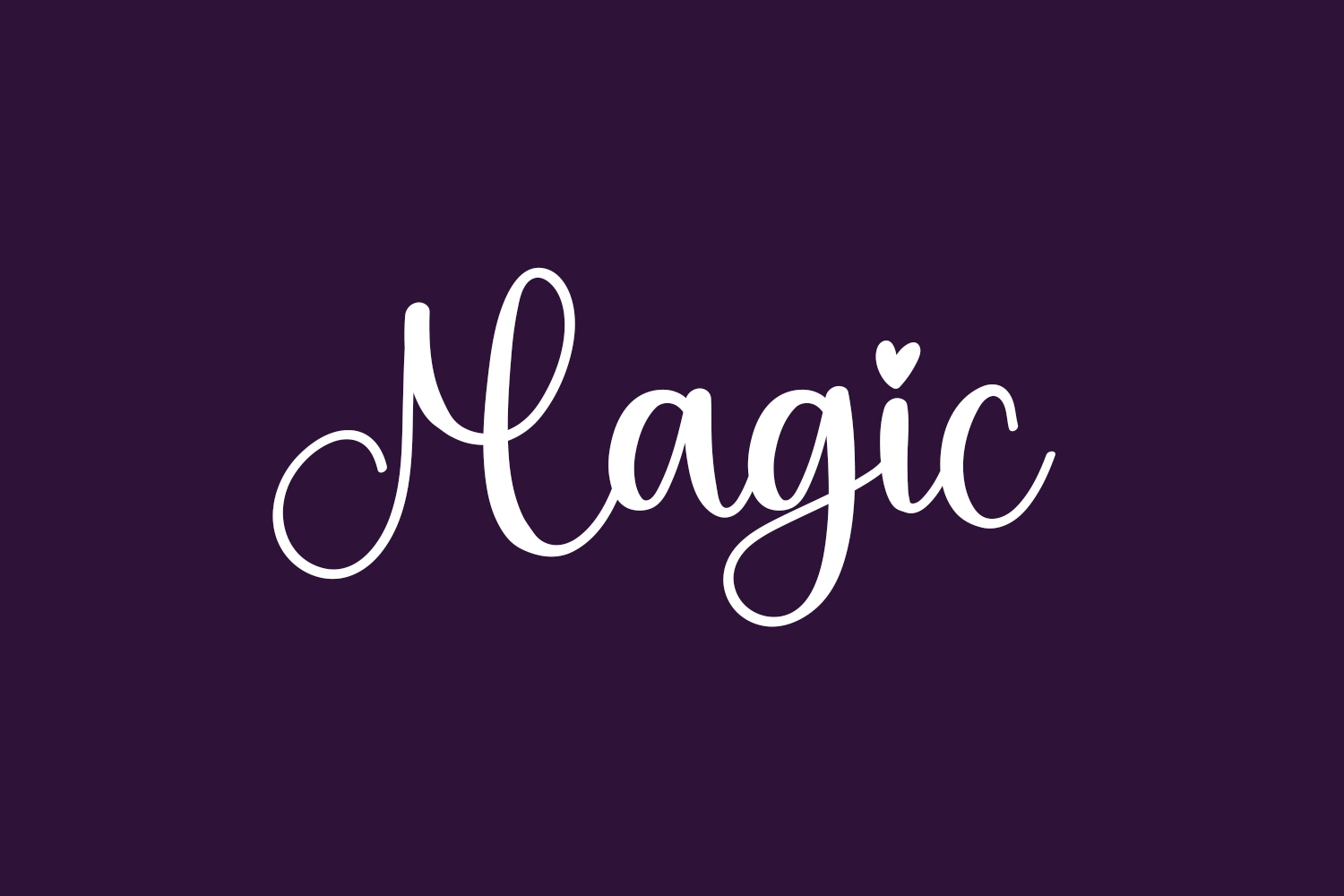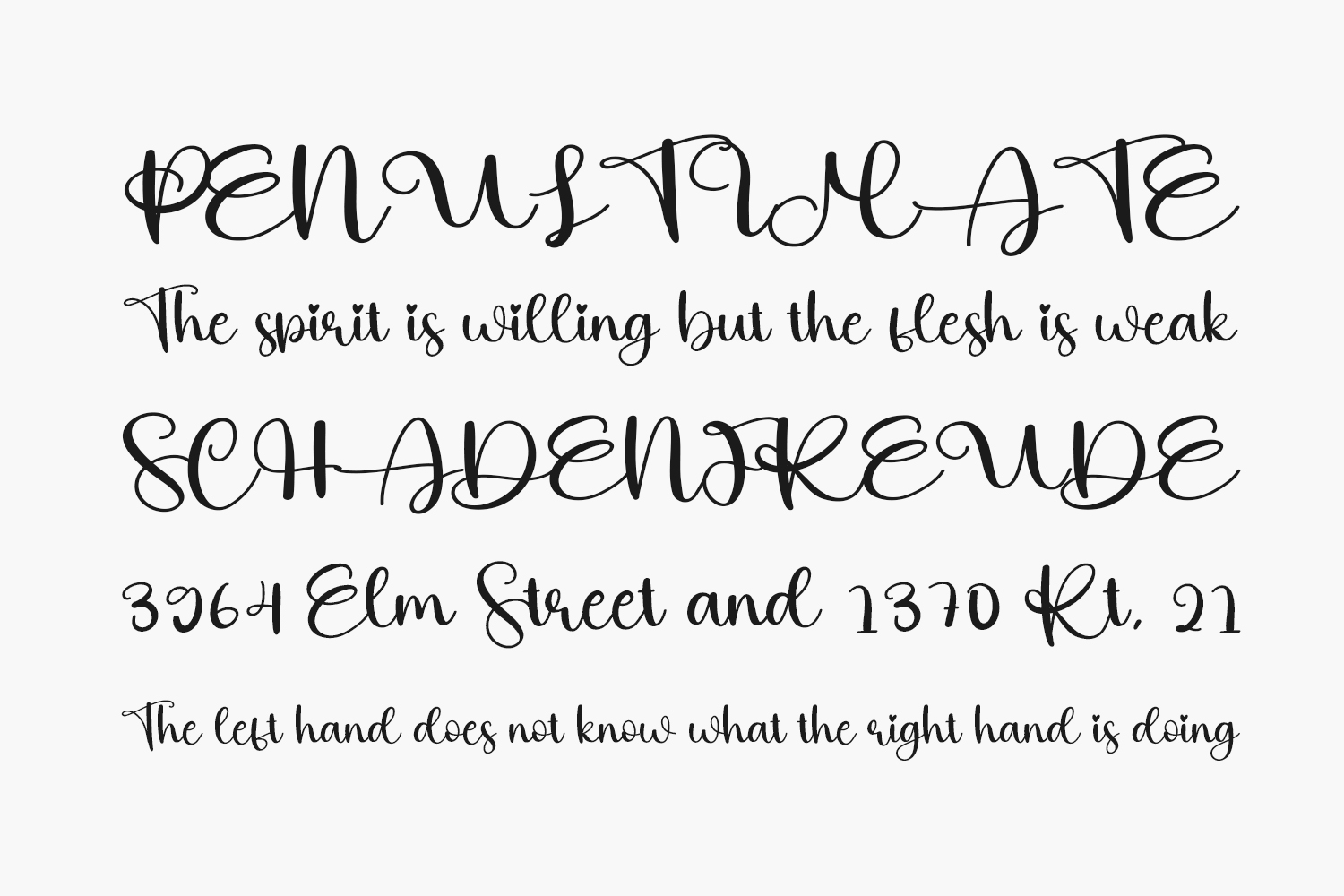
Elevate romance to new heights with our heart-dot adorned Magic Free Font, featuring delightful details on characters like “i” and “j”. Its clean and elegant style makes it perfect for a wide range of designs, making it a top contender to become your favorite go-to font for any occasion! Let your creativity flourish with this charming typeface. Magic Free Font is free for personal use only. Please purchase the full version for commercial use.
Designed by Scratchones